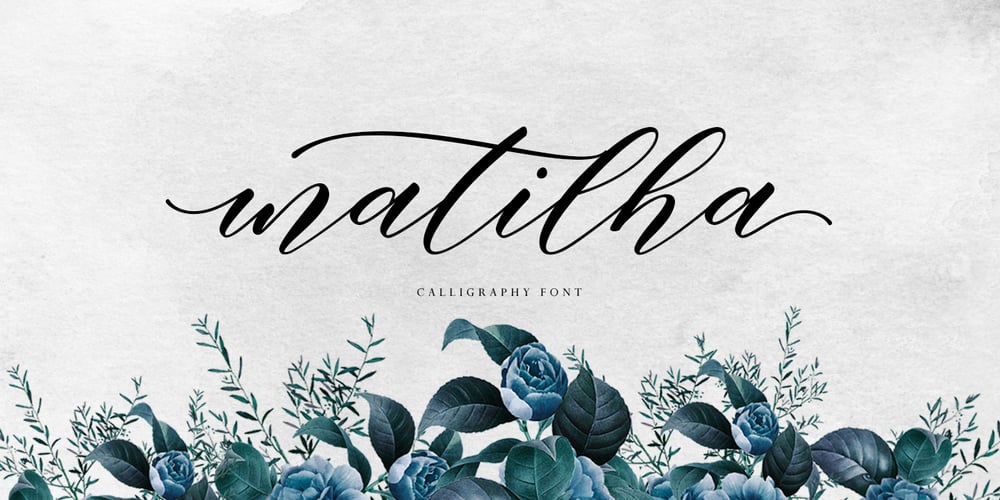
Matilha Script Font Family was designed by Juni Fadil Putra and published by FadeLine Studio. Matilha Script contains 1 styles and family package options. This is a Modern Calligraphy font with an elegant, stylish, soft and neat italic style. With a style like this, this font is definitely suitable for various design projects.This font is very suitable for design needs such as Cricut design, comic, logo’s, branding projects, homeware designs, product packaging, mugs, quotes, posters, shopping bags, logo’s, t-shirts, book covers, name card, invitation cards, greeting cards, and all your other lovely projects.